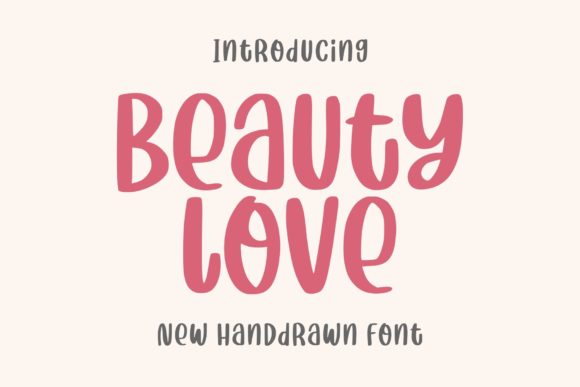
Embark on a typographic journey of love and beauty with Beauty Love Font, a charming handwritten font that's brimming with character. Its playful and joyful strokes weave a captivating tale, effortlessly adding a touch of whimsy and delight to your creative projects.
Dive into the world of Beauty Love, where elegance and charm intertwine. With its distinctive script style, Beauty Love exudes a sense of warmth and approachability, making it the perfect choice for expressing your heartfelt emotions in letters, cards, and other forms of correspondence.
Picture the joy of receiving a wedding invitation penned in the enchanting Beauty Love Font, where every letter dances with grace and invites the recipients to a celebration filled with love and happiness. Let your imagination soar as you envision your stationary art adorned with Beauty Love's delicate curves, transforming ordinary notes into works of art.
In the realm of social media, Beauty Love shines as a beacon of creativity. Its eye-catching nature commands attention, making your posts stand out in a crowded digital landscape. Engage your audience with captivating captions and visuals that resonate with your brand's unique personality.
But Beauty Love's versatility extends far beyond personal expression. Its charm seamlessly blends with the demands of academia, making it the perfect companion for college essays and research papers. With Beauty Love, your words take on a new life, captivating your readers and leaving a lasting impression.
So, embrace the allure of Beauty Love Font and let your creativity flourish. Its versatility knows no bounds, allowing you to weave enchanting stories, spread joy, and inspire hearts. Its playful spirit and timeless beauty will elevate your projects to new heights, leaving an indelible mark on all who encounter it.